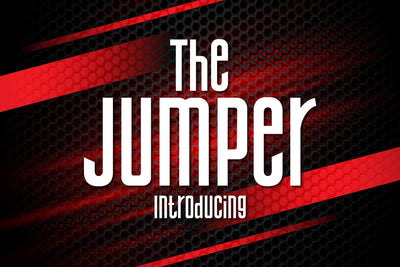
The Jumper Font
The Jumper is a simple, thin, tall sans serif font. It's a beautiful and professional font that's easy to use and versatile. It’s suitable for branding, logos, packaging, card-making, magazines, films, posters, websites, and more creative ideas. Add it to your fresh ideas and notice how it makes them stand out!